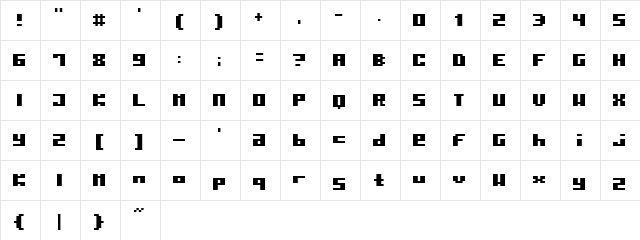
Pormask Regular Free Font
Pormask Regular
Design Context for Pormask
Pormask is a composed and adaptable typeface that performs quietly and consistently across a wide range of design contexts.